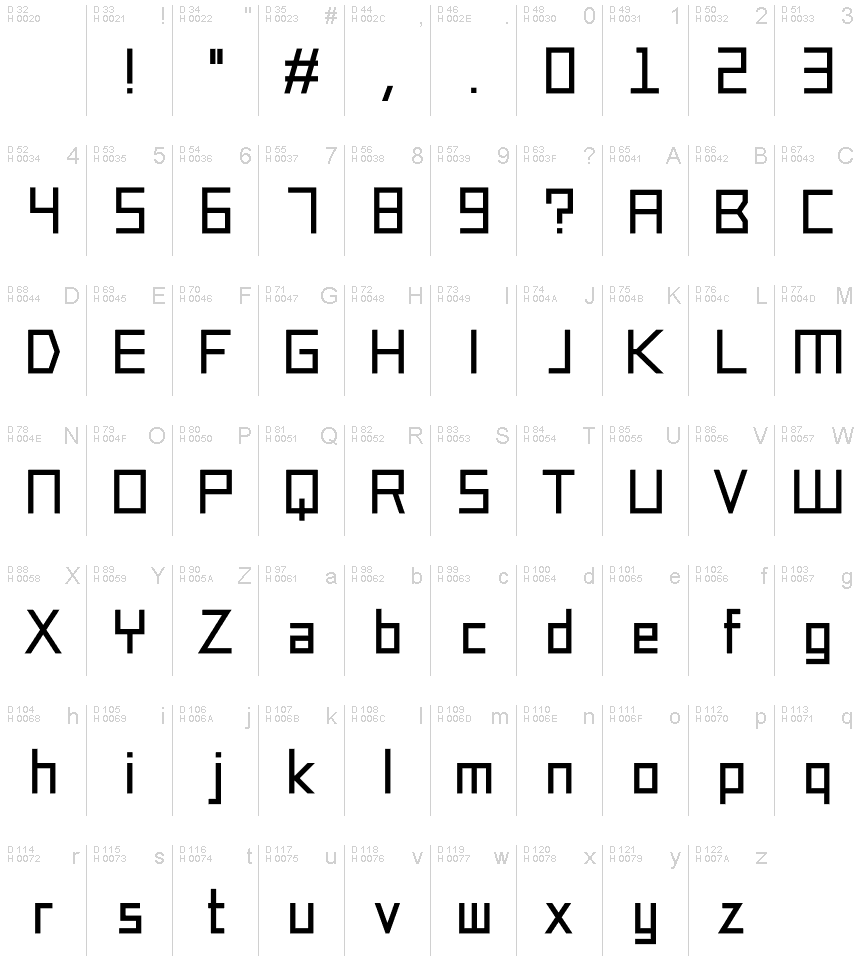
Squarified
Squarified, designed by Rajappan123, is a captivating display font that exudes a futuristic and edgy vibe. With its semi-light weight, this techno-inspired typeface adds a touch of modernity to any project. Perfect for gaming websites, sci-fi novels, and technology-based blogs, Squarified's bold lines and geometric shapes create an eye-catching visual impact. Whether you're designing a logo for a cutting-edge startup or crafting promotional materials for an innovative event, this font will ensure your message stands out from the crowd with its unique blend of sophistication and creativity.